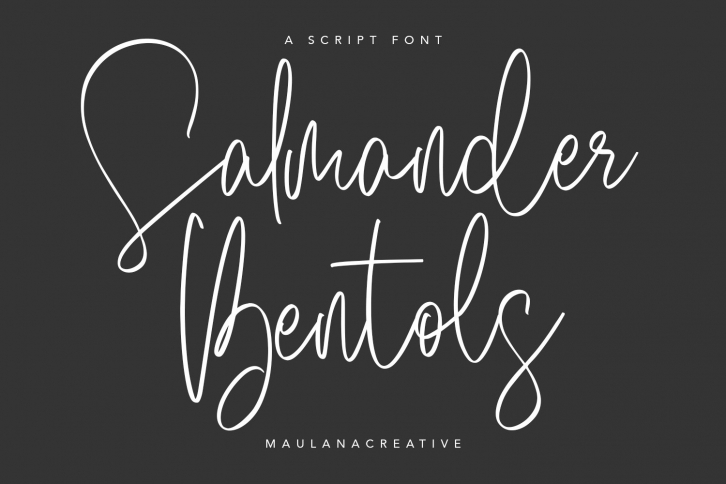
Salmander Bentols Script Signature Typeface Font Download
Salmander Bentols Script Signature Typeface is a great font that was designed by Maulana Creative. Imagine the amount of combinations you can create using this font! The archive is 12.71 MB and it was released on July 9, 2020. Salmander Bentols Script Signature Typeface looks beautiful on wedding invitations, greeting cards, logos, posters, labels, t-shirt designs, logos, business cards and is perfect for use in ink or watercolor works, fashion, magazines, packaging and food menus, children's books and more!